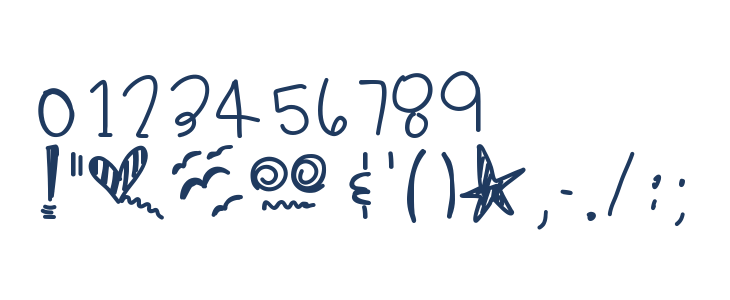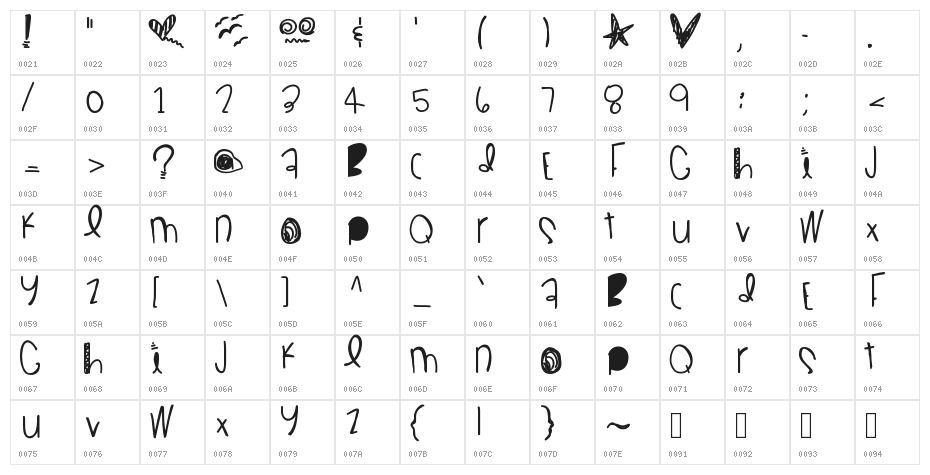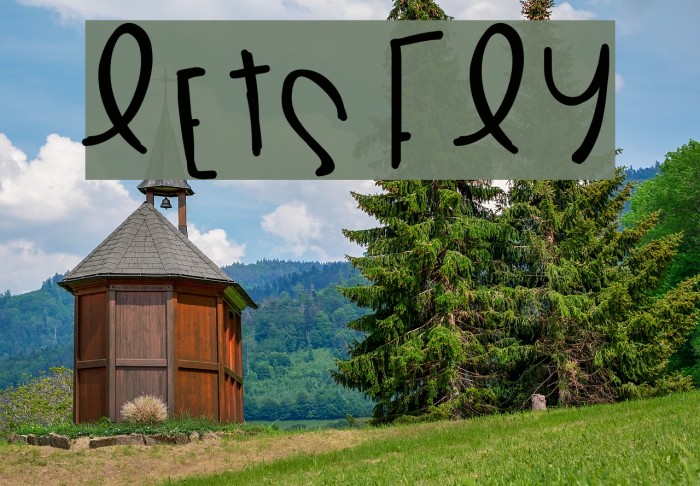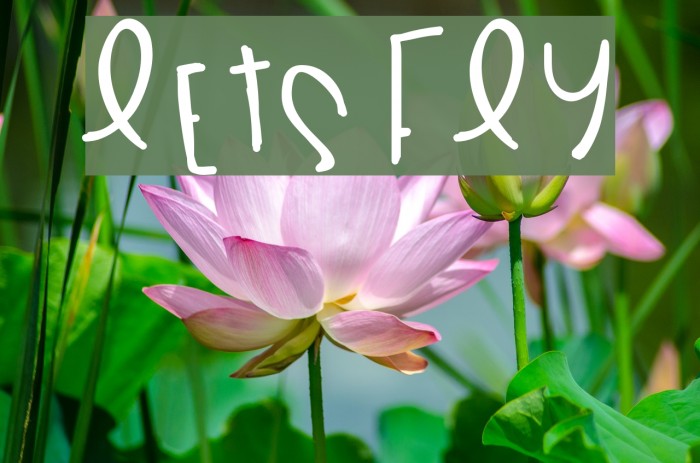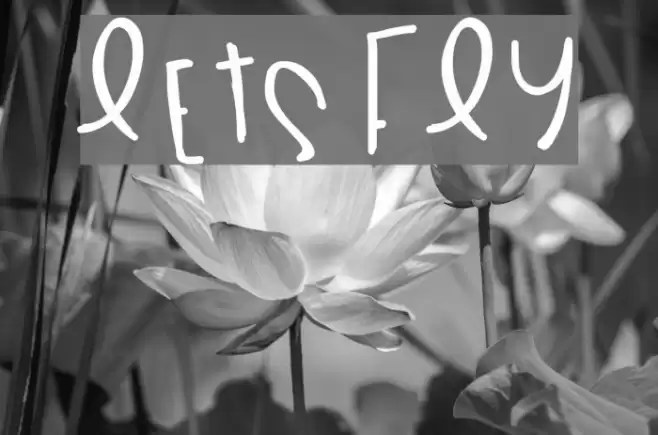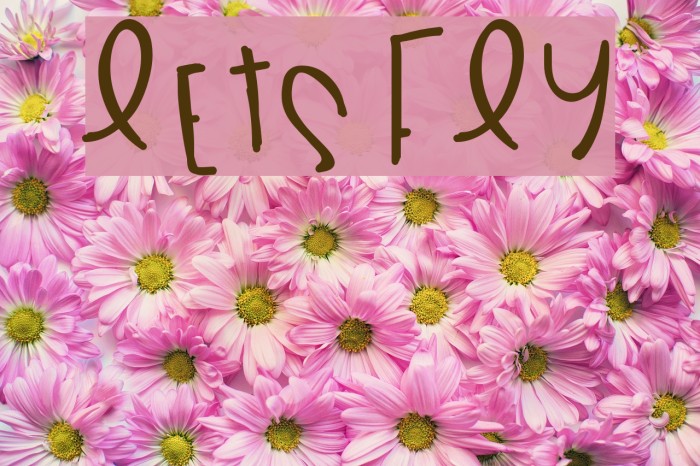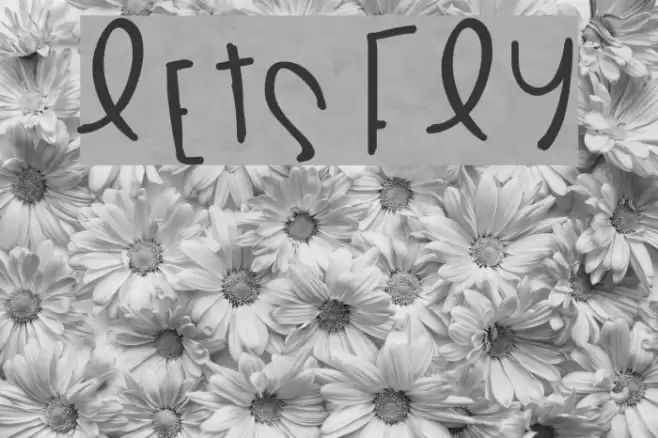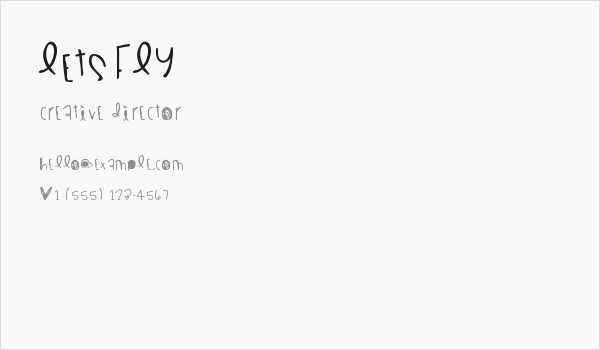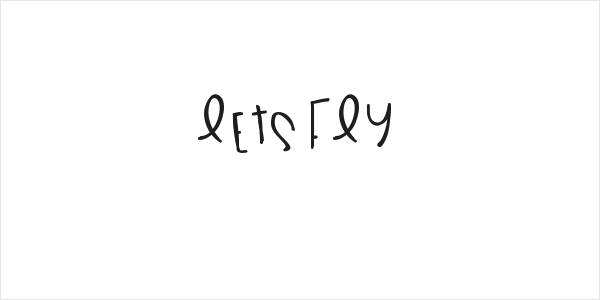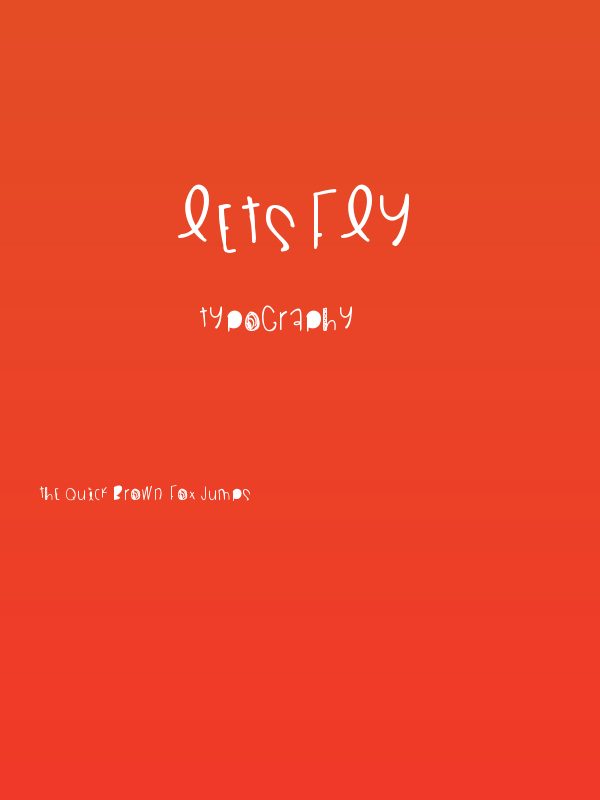
LetsFly Font
LetsFly Description
This playful and whimsical font features a unique and quirky design with irregular shapes and varying line thicknesses. The characters are creatively crafted, with some letters incorporating unexpected elements, such as dots and swirls, adding to its charm. The font has a hand-drawn feel, making it perfect for projects that require a personal touch. Its distinct style is both eye-catching and fun, ideal for creative and informal applications. The numbers and special characters maintain the same playful aesthetic, ensuring consistency across all text elements.
| Proposed Projects | Ideal for children's books, greeting cards, playful branding, and creative posters. |